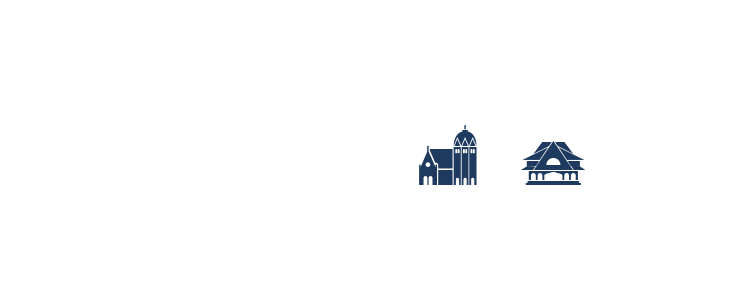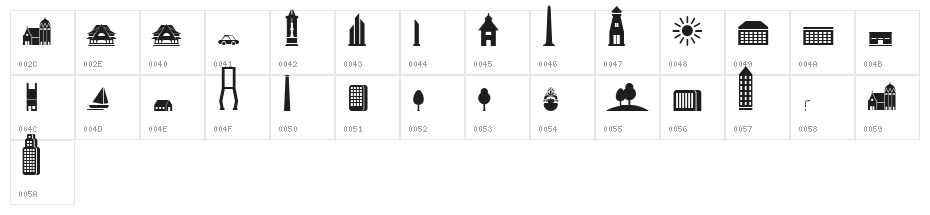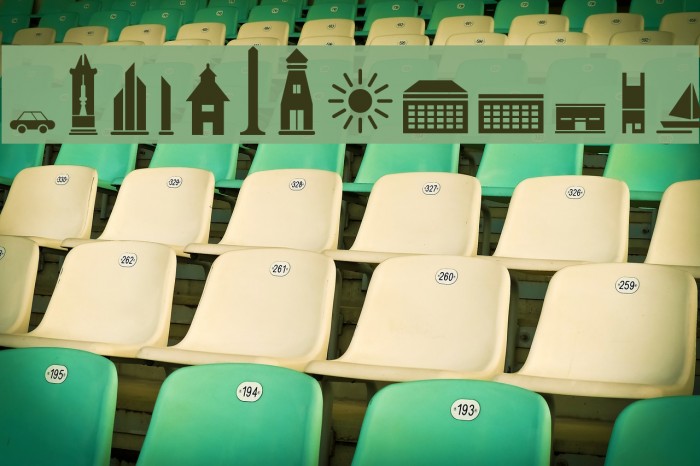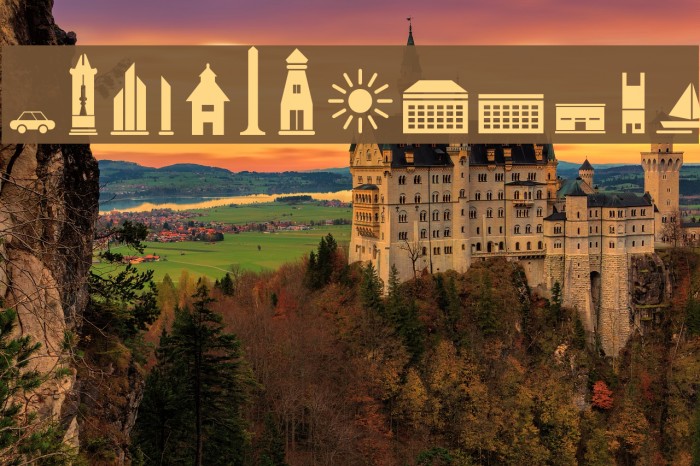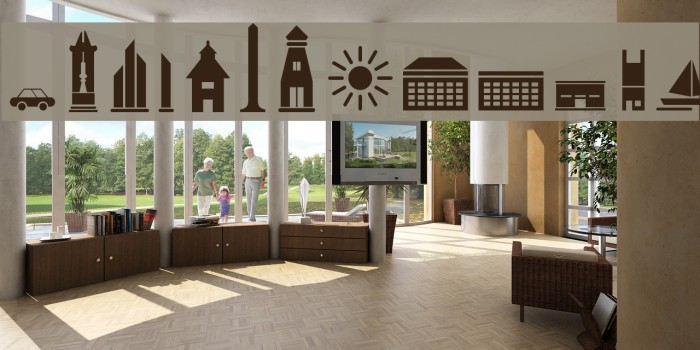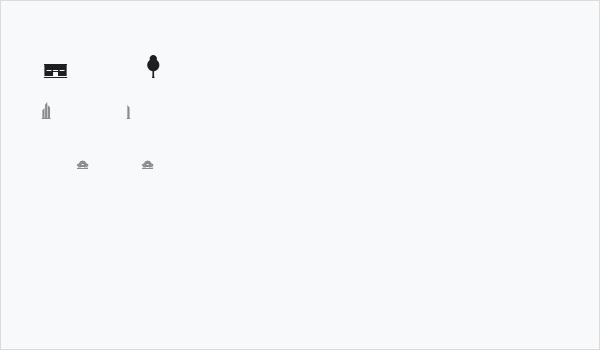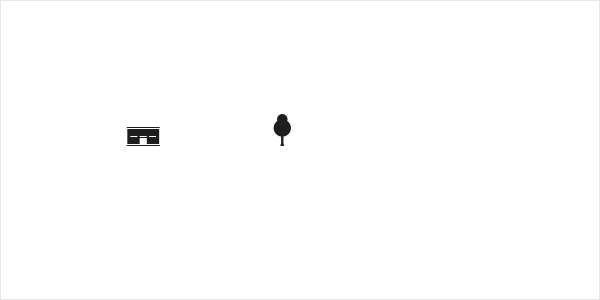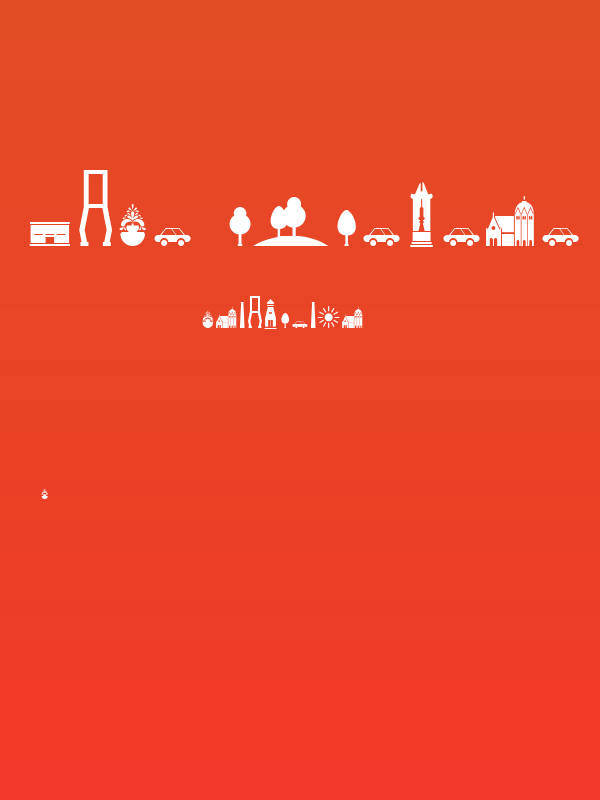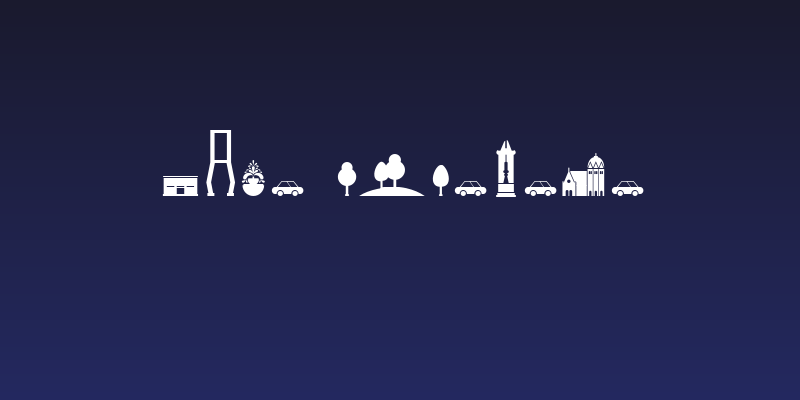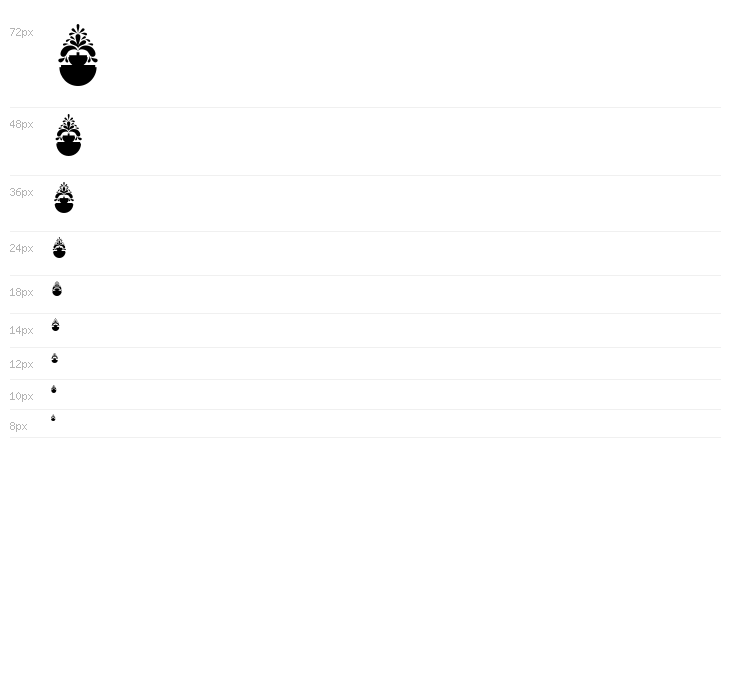
Kota Surabaya Font
Kota Surabaya Description
A decorative dingbat font featuring stylized icons of buildings, landmarks, trees, vehicles, and urban elements, all rendered in bold, solid black silhouettes with clean, geometric lines. The icons represent various cityscape and architectural motifs, suitable for visual storytelling or thematic design.
| Overall Style | Decorative, Modern |
| Use Case | Icons, Infographics, Themed headlines, Visual accents |
| Proposed Projects | City guides, travel brochures, infographics, event posters, educational materials, branding for urban projects. |